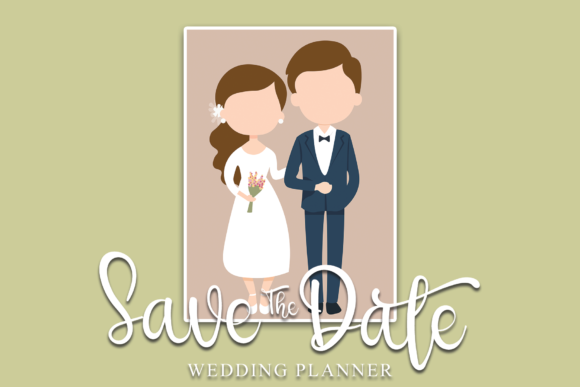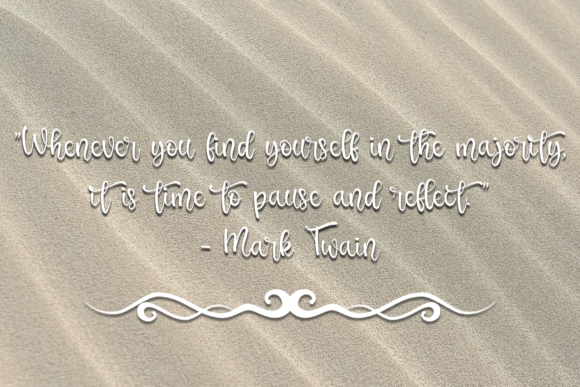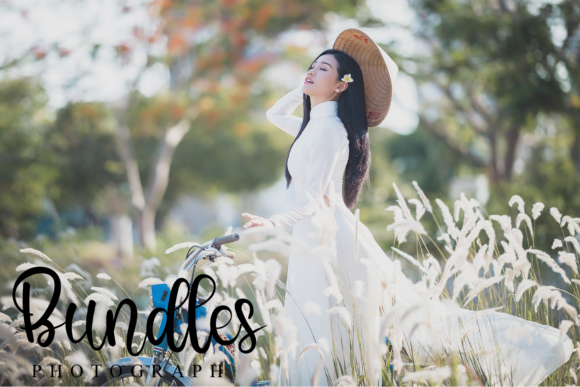
About The Beach Font
The Beach is a chic and refined script font that exudes sophistication and elegance. With its stylish alternates and ligatures, this font adds a touch of uniqueness and versatility to any project, making it the perfect match for a wide range of design needs.
The flowing and graceful letterforms of The Beach create a sense of beauty and elegance. Each character is carefully crafted to capture the essence of handwritten calligraphy, with its delicate strokes and graceful curves. This attention to detail gives the font a high-end and polished look, making it ideal for projects that require a touch of sophistication.
One of the standout features of The Beach is its collection of stylish alternates and ligatures. These additional characters provide endless opportunities for creativity and customization. Whether you’re looking to add a unique flourish to your typography or create captivating letter combinations, the alternates and ligatures of The Beach will elevate your designs to new heights.
The versatility of The Beach is another notable aspect. It seamlessly adapts to various projects and themes, from elegant wedding invitations and stationery to luxury branding, logos, and packaging. The font effortlessly adds a touch of class and refinement, allowing your designs to make a lasting impression.
Moreover, The Beach’s refined style extends beyond its visual appeal. Its elegant and sophisticated nature evokes a sense of luxury and exclusivity, making it an excellent choice for high-end fashion, beauty, and lifestyle projects. The font captures the essence of upscale aesthetics and elevates the overall perception of your brand or design.
Whether you’re designing for print or digital media, The Beach will shine in various contexts. Its clean and legible design ensures readability, while its stylish elements add a touch of personality and flair. From invitations and greeting cards to headlines and branding materials, The Beach is a versatile font that delivers both beauty and functionality.
In conclusion, The Beach is a chic and refined script font that exudes sophistication and elegance. Its stylish alternates and ligatures offer endless creative possibilities, while its versatile nature allows it to elevate a wide range of design projects. Embrace the beauty and sophistication of The Beach to create stunning visuals that leave a lasting impression.